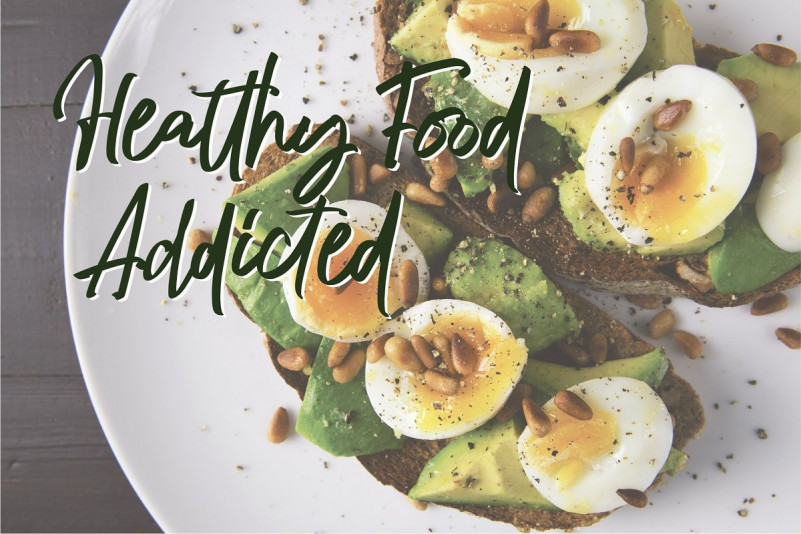
Algenta Script Font
Introducing Algenta Handwritten Script, a handwritten font with a signature style and bouncing character. It comes in with ligatures, swashes, stylistic alternates and stylistic set. Algenta can be used for various types of design needs such as branding materials, promotional flyers, social media templates, business cards, logos, t-shirt, posters, and more.
Algenta also includes a full set of gorgeous uppercase and lowercase letters, numerals, punctuations with multilingual support, this font also suitable to be combined with sans serif that will make your design more perfect